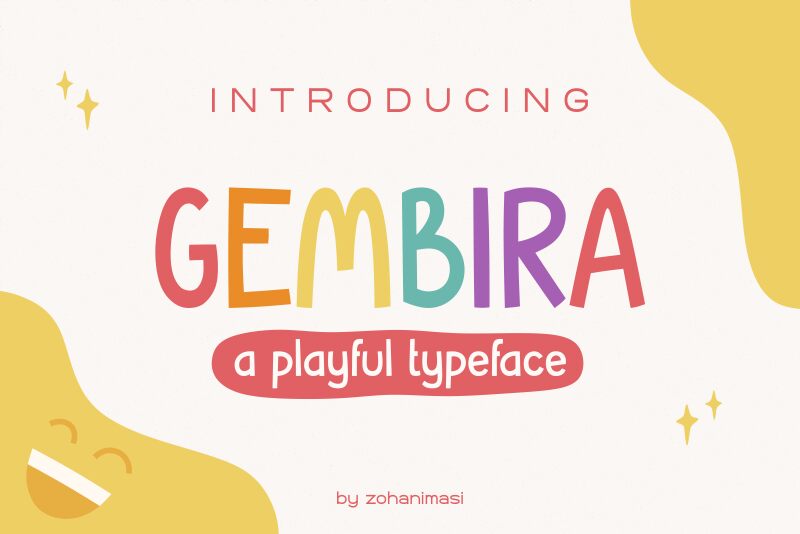
Introducing Gembira, a display font designed by Zohan Nur Muchlis. This playful comic font is perfect for creating fun, eye-catching designs in advertising campaigns, children's books and comics.